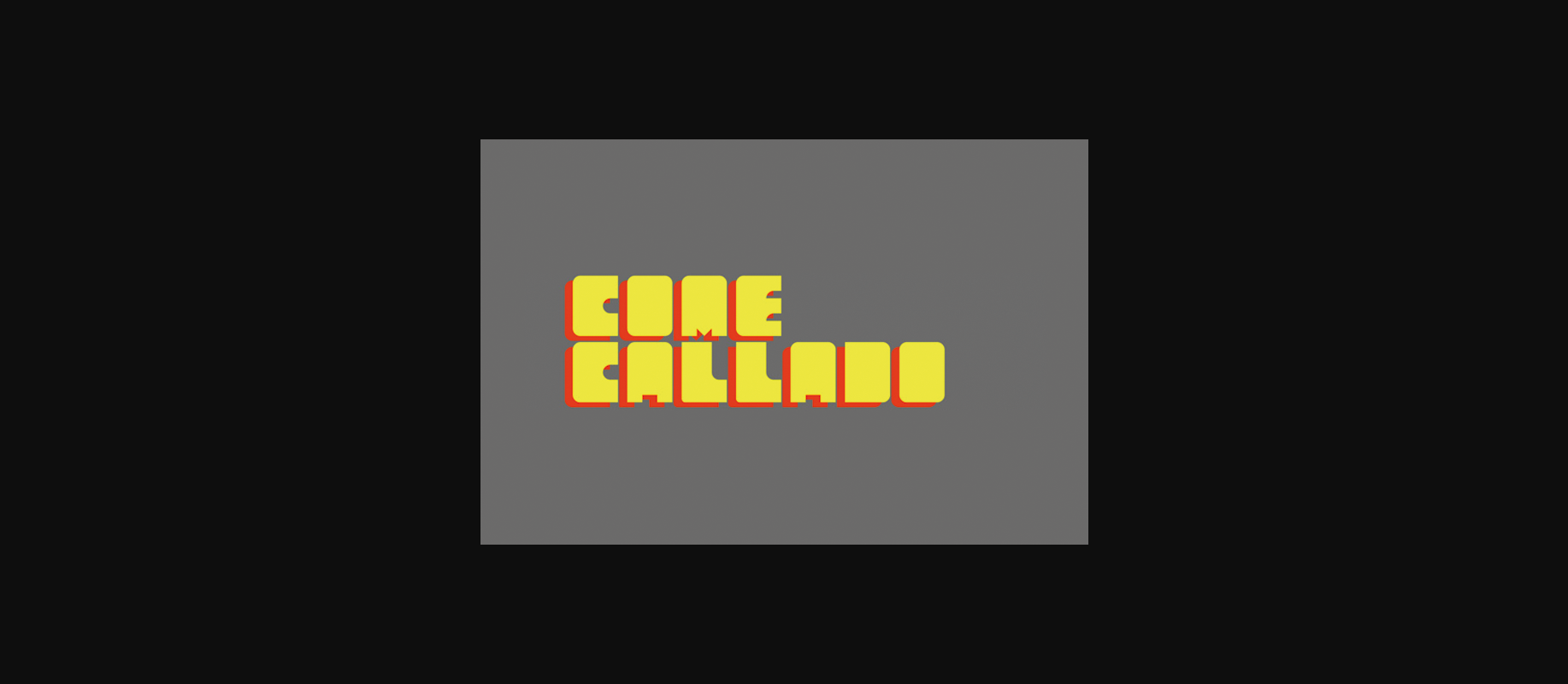
About Come Callado Font
Come Callado is a really cool and geometric 2010’s inspired display font, perfect for party flyers and more! This font is ideal in large formats, and can be used to give your designs a clean and modern feel.